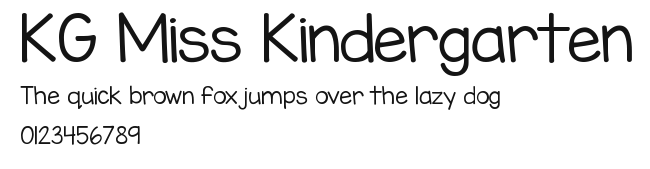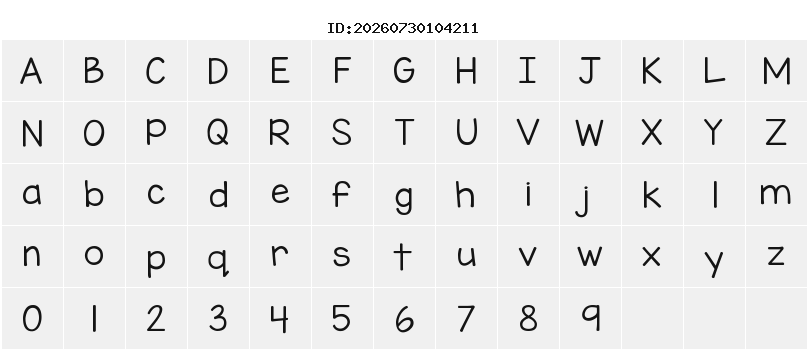
KG Miss Kindergarten Preview
• Font Name: KG Miss Kindergarten
• Full Font Name: KG Miss Kindergarten
• Designer: Kimberly Geswein
• Manufacturer: Kimberly Geswein
About KG Miss Kindergarten.ttf
KG Miss Kindergarten.ttf is a modern, elegant sans-serif font designed for ultimate readability and visual harmony. Perfect for branding, headlines, web design, and print materials.